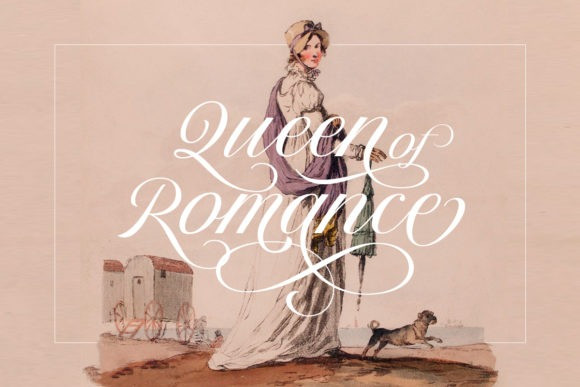
The Postgates Font
The Postgates Script Font is a classic and incredibly elegant script font. It is ideal for writing letters or romantic notes, as well as for creating your desired wedding invitations or thank you cards. This font is PUA encoded which means you can access all of the glyphs and swashes with ease!